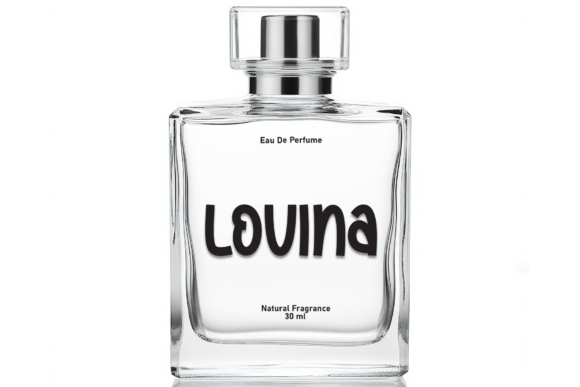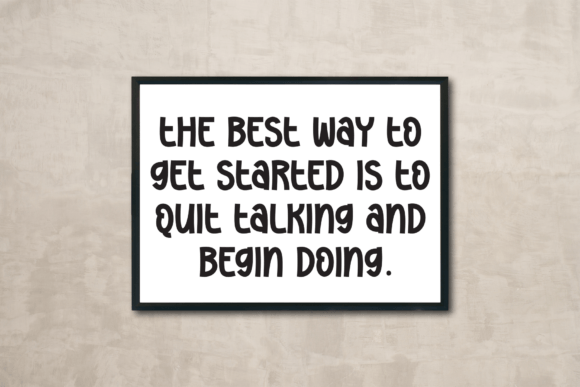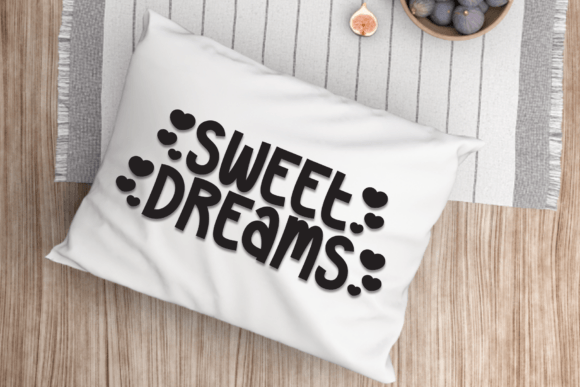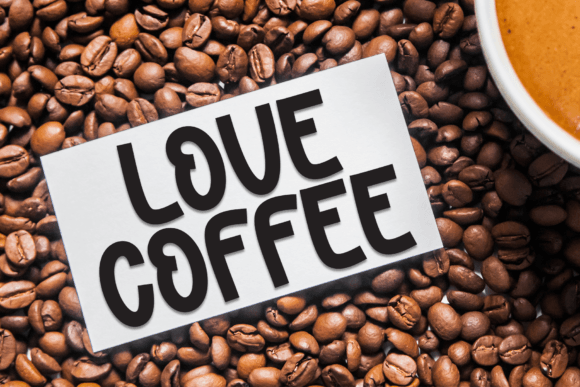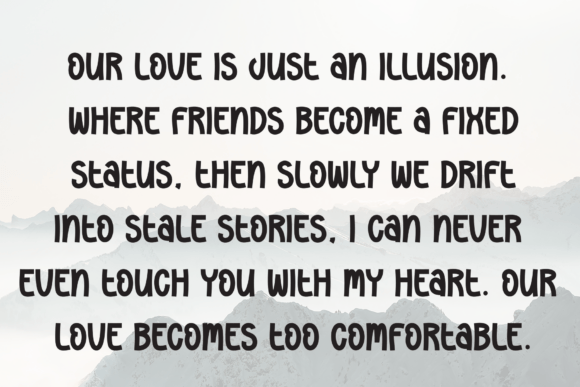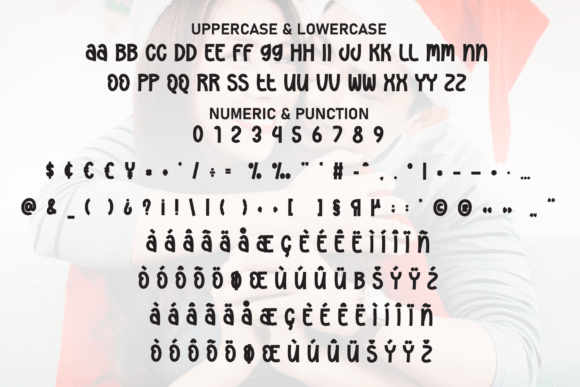
Introduction to Santa Lover Font
As the holiday season approaches, designers around the world are scrambling to create the perfect Christmas projects. Whether you’re working on a festive campaign or a romantic holiday theme, the right font can make all the difference. For me, it’s the moment when a design starts to come together – the spark of creativity, the thrill of experimentation, and the joy of bringing a vision to life.
| 📌 Product Name | Santa Lover Font |
| 👤 Author | Misterletter.co |
That’s why I’m excited to share with you the Santa Lover Font, a fun and quirky typeface that captures the playful spirit of the festive season. With its bold, rounded letterforms and adorable heart accents, this creative typeface is perfect for Christmas cards, gift tags, party invitations, and cheerful social media graphics. And the best part? It’s a free download, making it an invaluable design resource for any project.
As a designer, you know how much time and effort goes into finding the perfect font. That’s why Santa Lover Font is a game-changer – its high-quality design and transparent background make it easy to use and customize, taking your creative project to the next level.
Santa Lover Font Key Features
- Unique, whimsical design perfect for creative projects and holiday-themed designs.
- Perfect for designers and artists working on holiday-themed projects, or those who want to add a touch of festive cheer to their designs.
Honest Review: Santa Lover Font
I recently stumbled upon the Santa Lover Font, and I must say it’s a delightful addition to any design resource. The font is perfect for creating a festive atmosphere, especially during the holiday season.
- High-quality design: The font is well-designed and offers a wide range of characters, making it perfect for any creative project.
- Transparent background: The font has a transparent background, making it easy to use on any background image or design.
- Limited use: The font is specifically designed for holiday-themed projects, which might limit its use in other creative projects.
Overall, I’m impressed with the Santa Lover Font. It’s a great design resource for designers looking to add a touch of festive flair to their projects. However, its limited use and lack of commercial license might be a concern for some designers.
Use the Santa Lover Font on a transparent background to create a seamless and modern design. Experiment with different font sizes and styles to add visual interest to your project. With the Santa Lover Font, you can create a variety of designs, from simple and elegant to bold and playful.
The Santa Lover Font is ideal for holiday-themed designs, such as Christmas cards, gift tags, and social media graphics. It’s also perfect for creating festive invitations, menus, and other print materials. With its high-quality design and free download option, the Santa Lover Font is a valuable design resource for any creative project.
Is the Santa Lover Font a high-quality design resource?
Yes, the Santa Lover Font is a high-quality design resource, carefully crafted to provide a unique and festive touch to your creative project. With its clear and legible characters, the font is perfect for use in a variety of contexts, from holiday cards to advertisements.